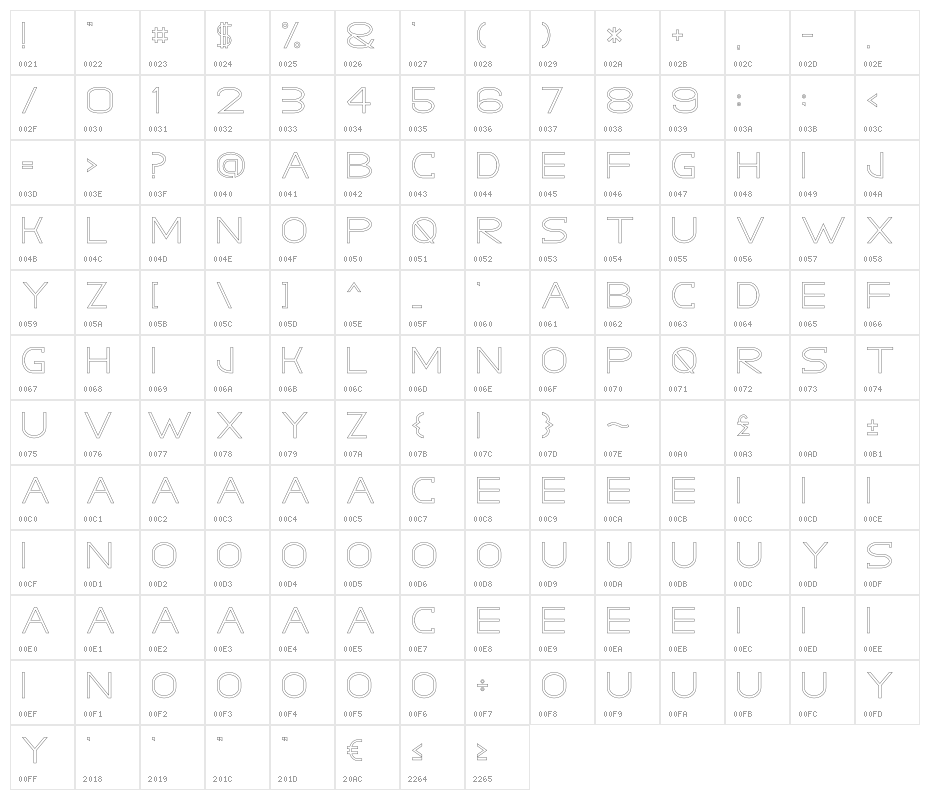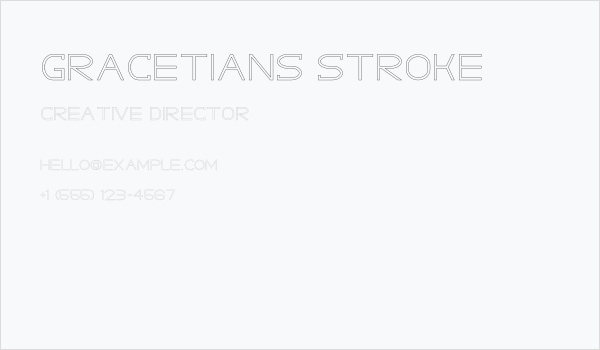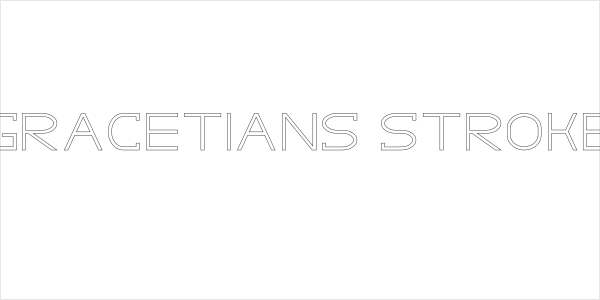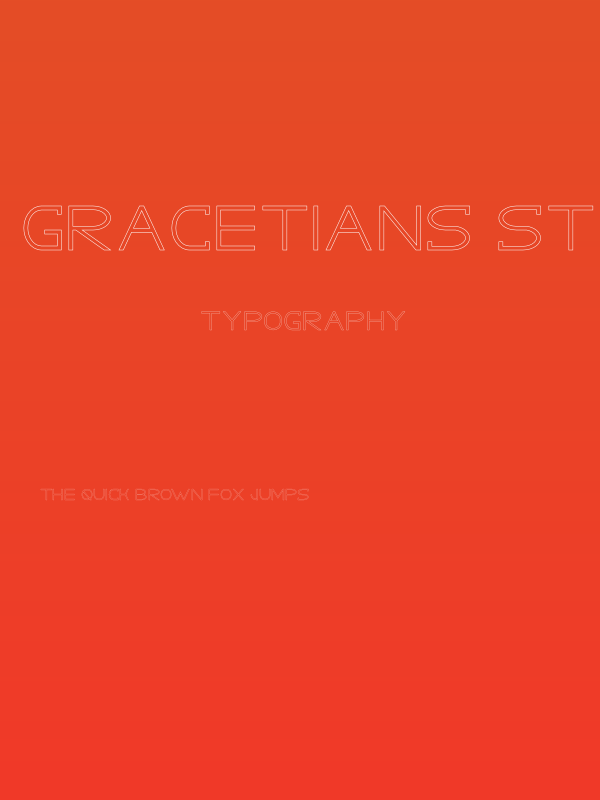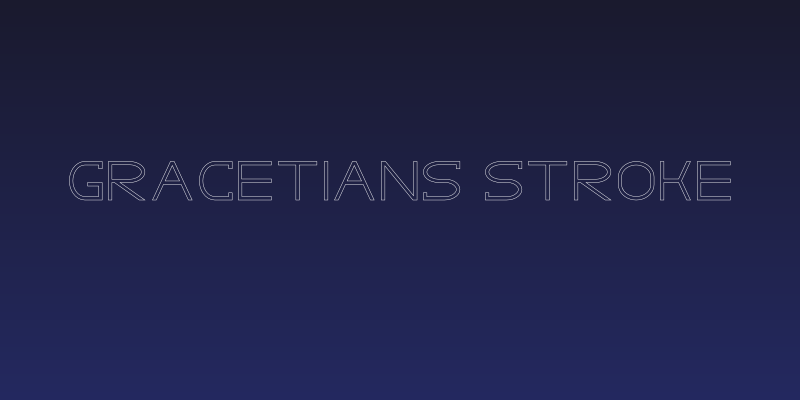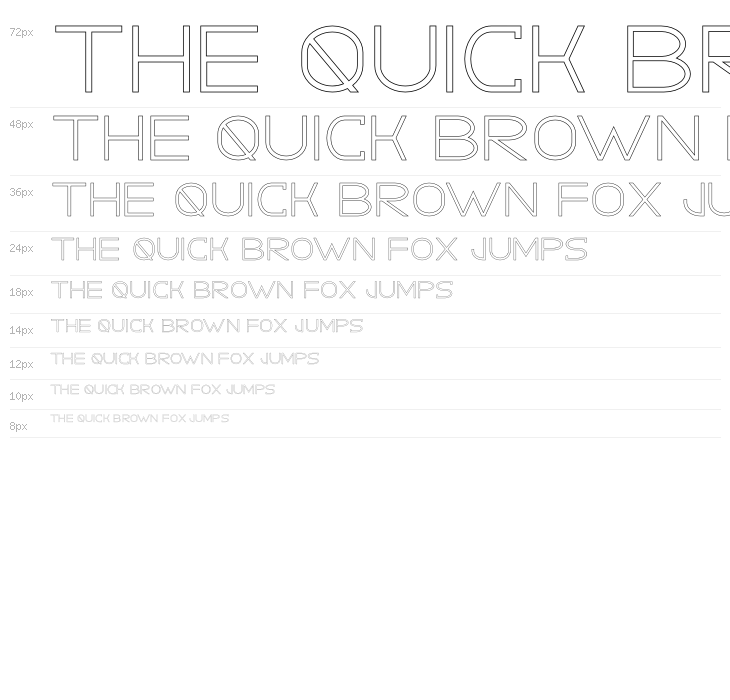
GRACETIANS Stroke Font
GRACETIANS Stroke Description
This font features a modern, geometric design with a distinct outline style. Each character is crafted with clean, straight lines and sharp angles, giving it a futuristic and technical appearance. The uppercase letters are uniform in height, while the numerals and special characters maintain a consistent style. The spacing between characters is balanced, ensuring readability while maintaining the font's unique aesthetic. Its minimalist and structured form makes it suitable for projects that require a contemporary and sleek look.
| Proposed Projects | Ideal for technology branding, modern posters, digital interfaces, and futuristic design projects. |